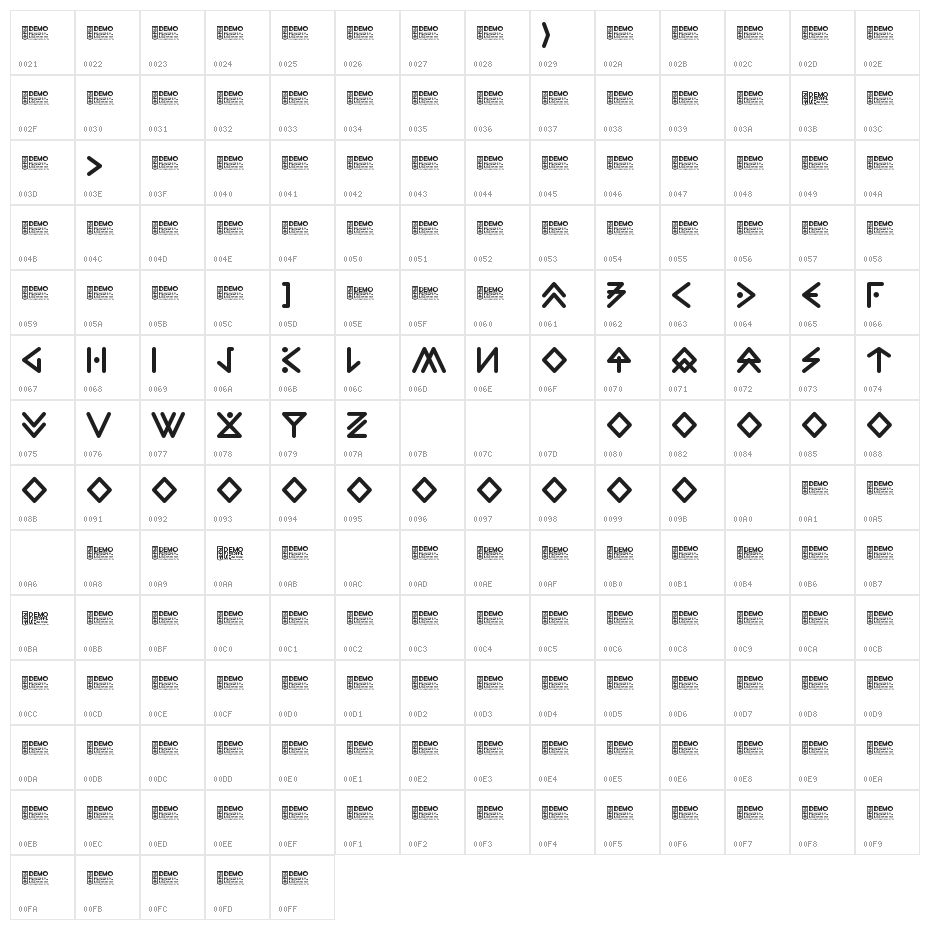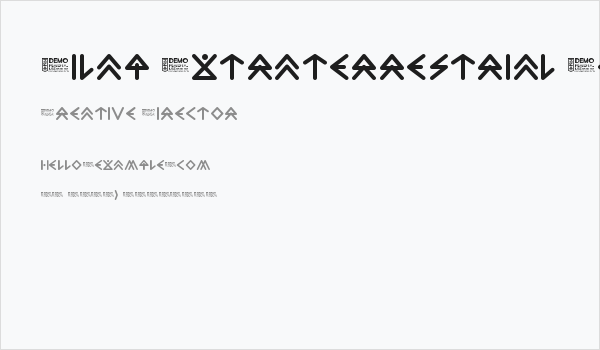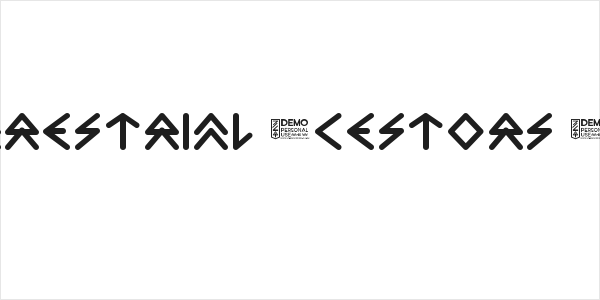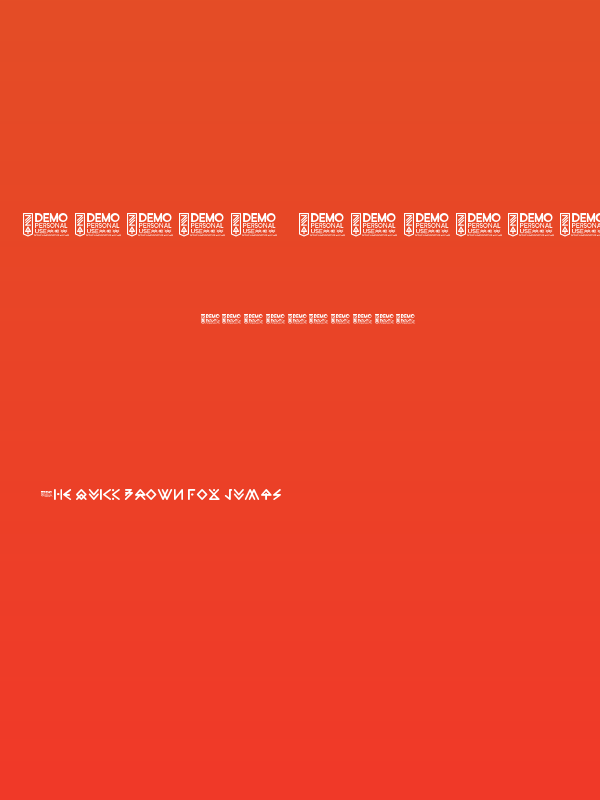
Zilap Extraterrestrial Acestors DEMO Futuristic Font
Zilap Extraterrestrial Acestors DEMO Futuristic Description
This font exhibits a futuristic and geometric design, characterized by its bold and angular letterforms. Each character is crafted with a unique combination of straight lines and sharp angles, giving it a distinctly modern and extraterrestrial appearance. The uppercase letters are particularly striking, with some incorporating additional geometric elements like dots and slashes, enhancing the overall sci-fi aesthetic. The font's style is reminiscent of alien or space-themed motifs, making it ideal for projects that require a touch of the otherworldly. Its boldness ensures that it stands out, while the consistent angular design across all characters provides a cohesive look.
| Proposed Projects | Ideal for sci-fi themed projects, video game titles, movie posters, and branding for technology or space-related products. |